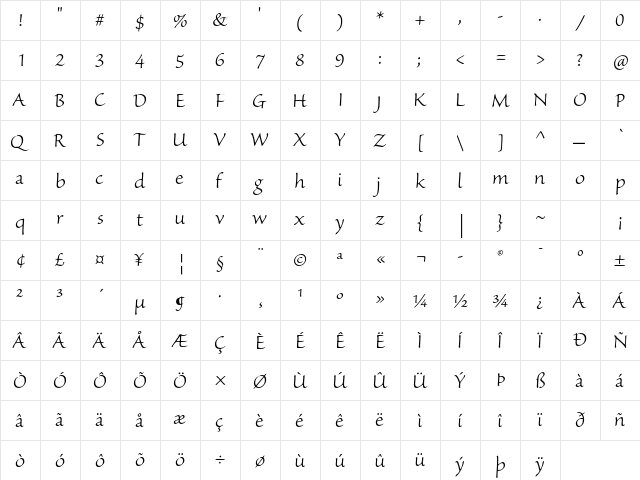
Sanvito Pro Light
| Designer | Robert Slimbach |
Design Context for Sanvito Pro Typeface
Sanvito Pro is a composed and adaptable typeface that performs quietly and consistently across a wide range of design contexts. Its slender proportions lend an understated elegance to any composition.